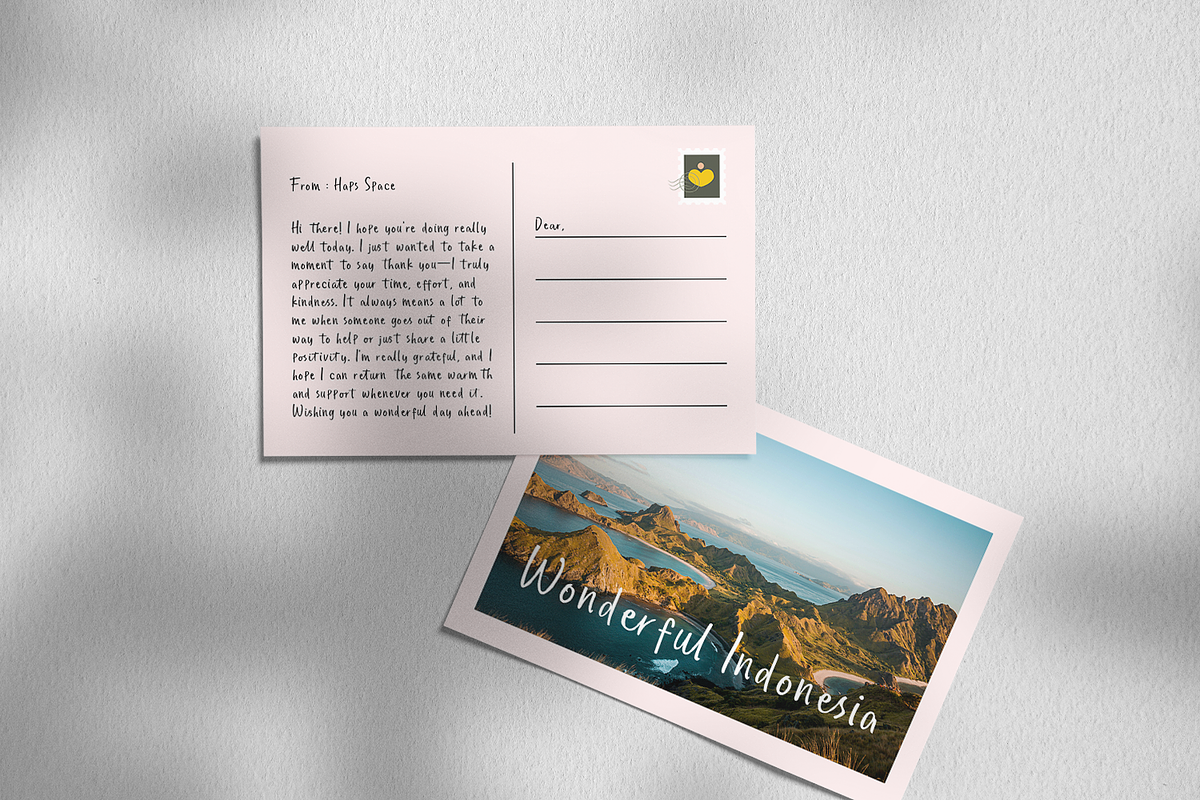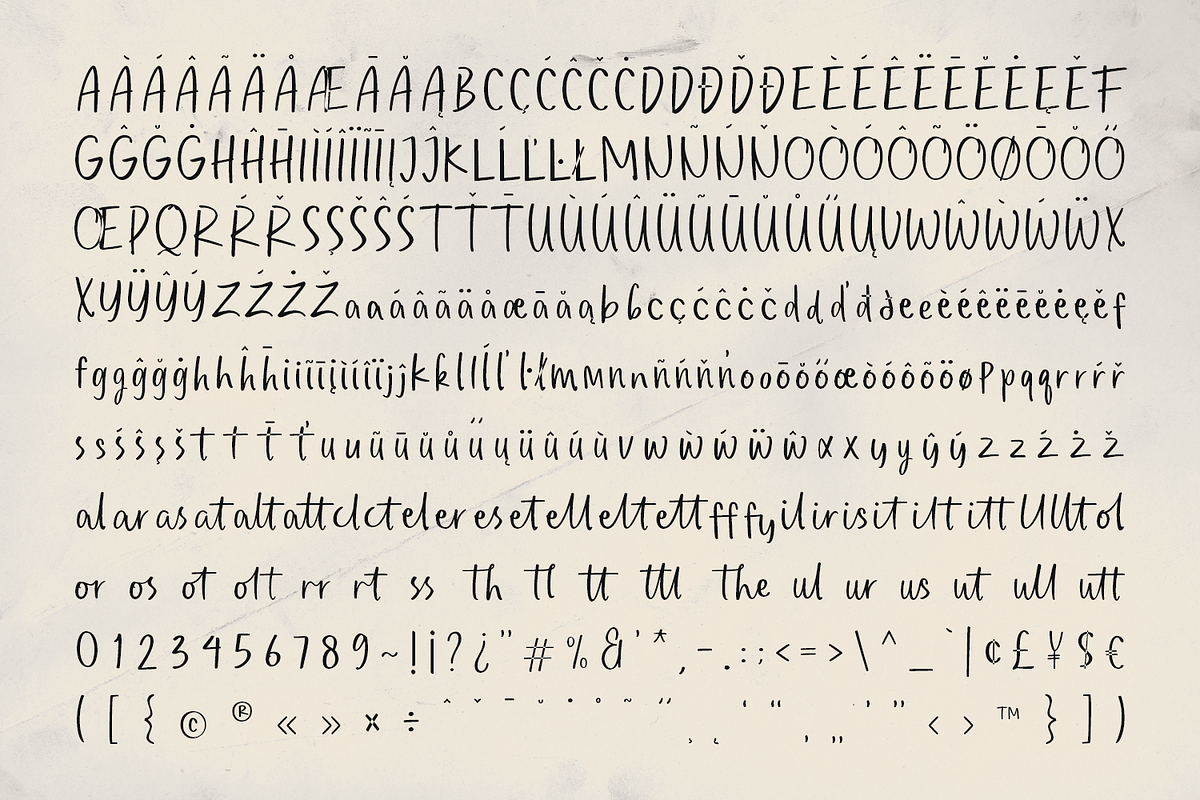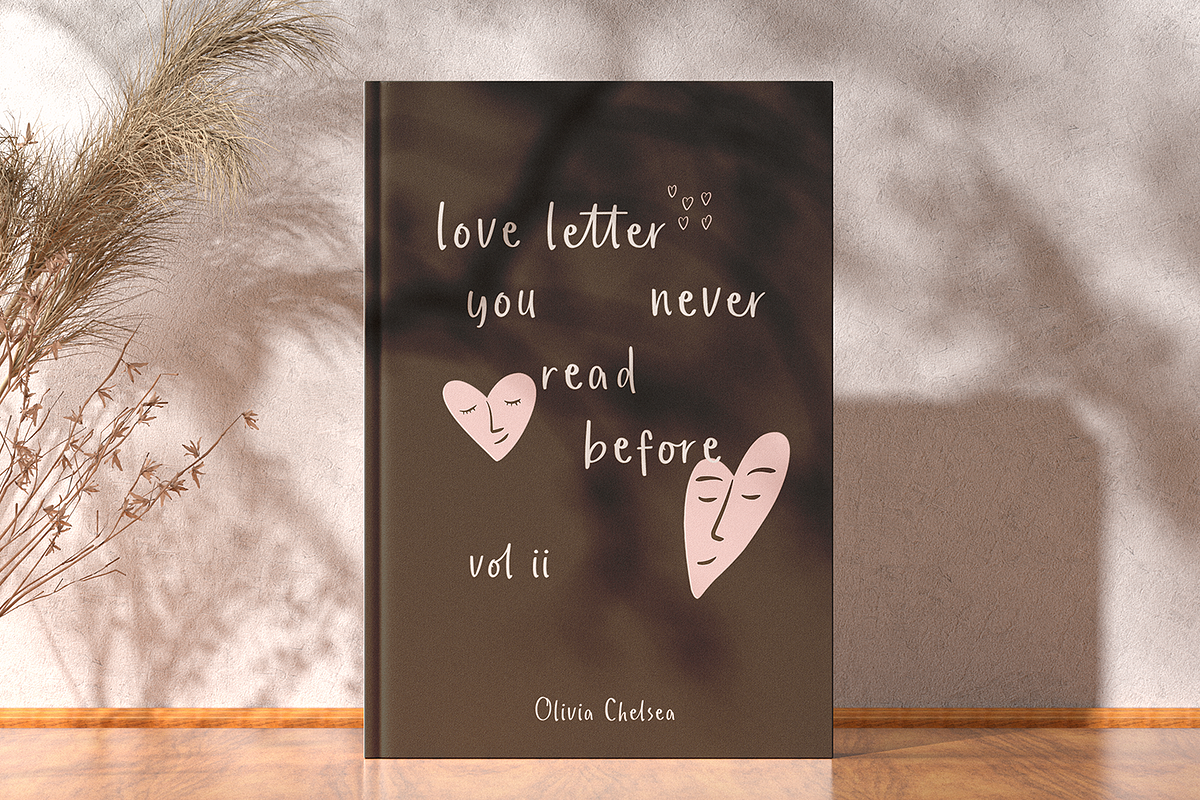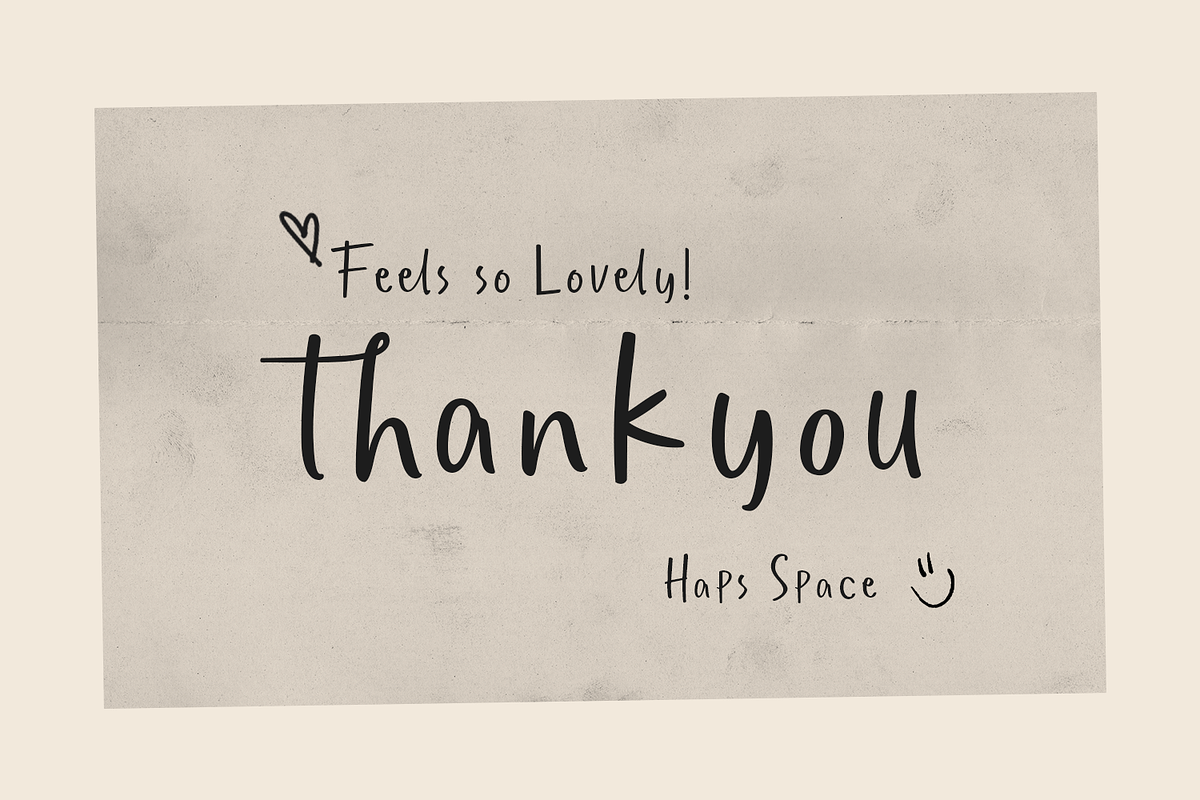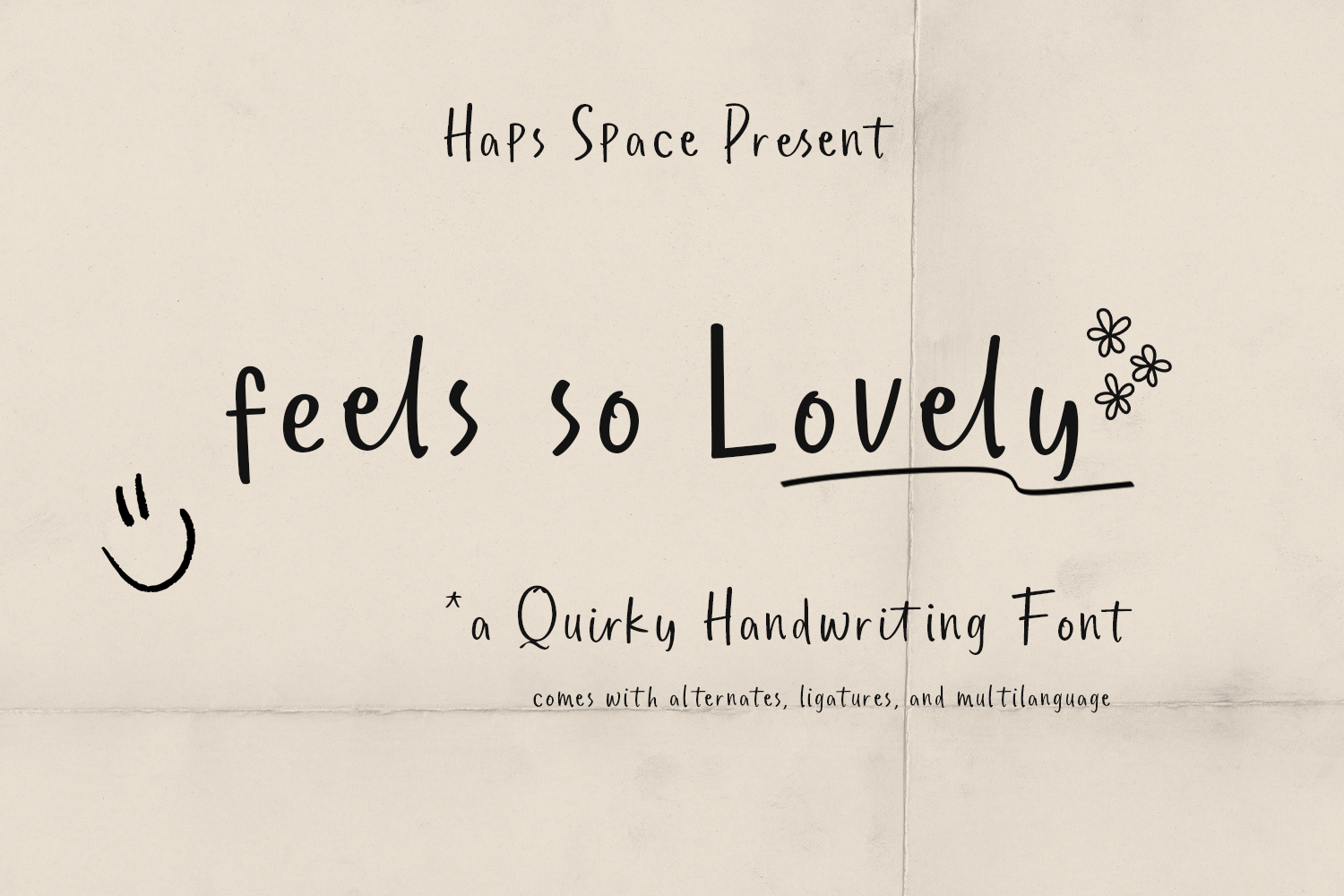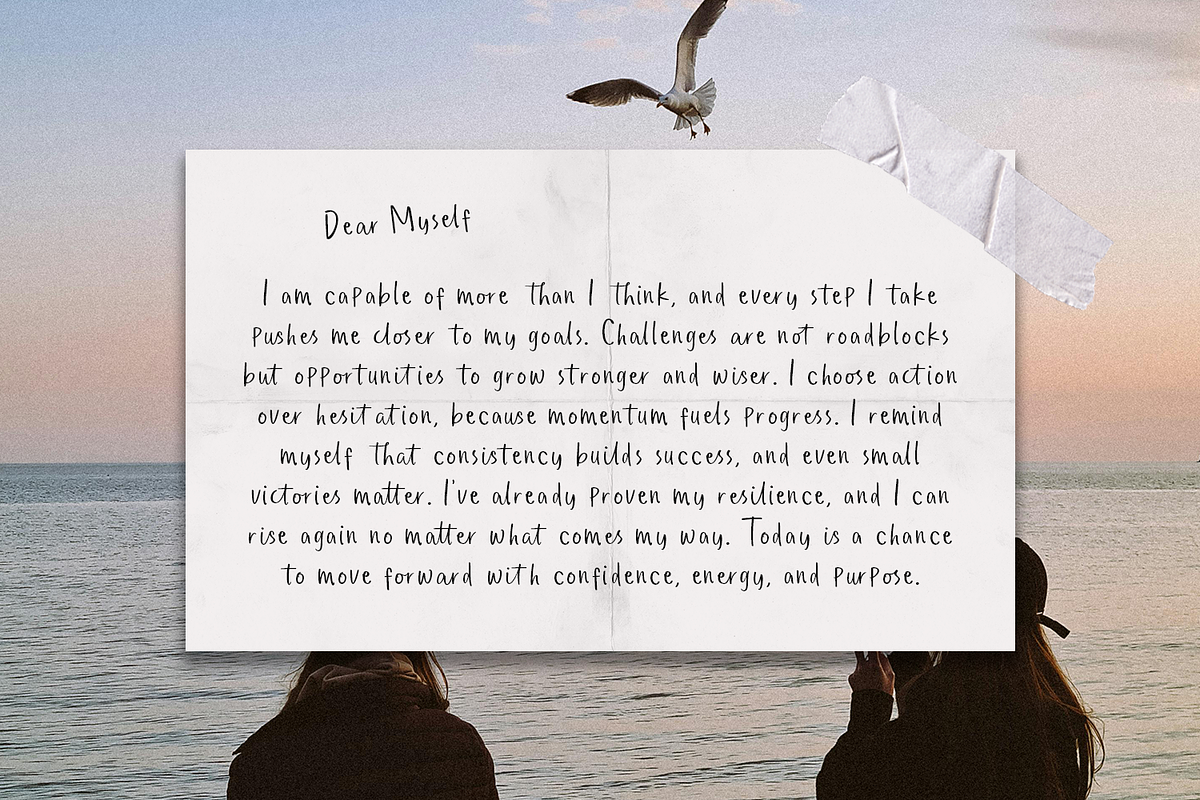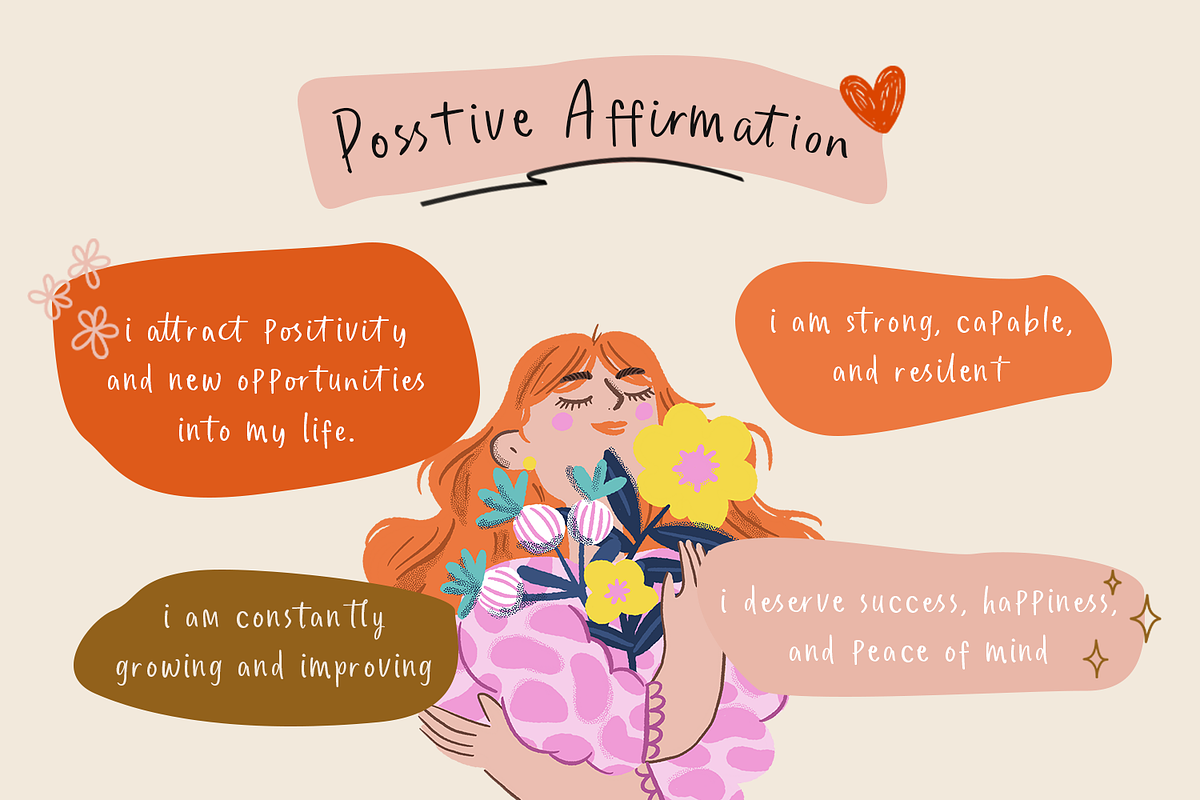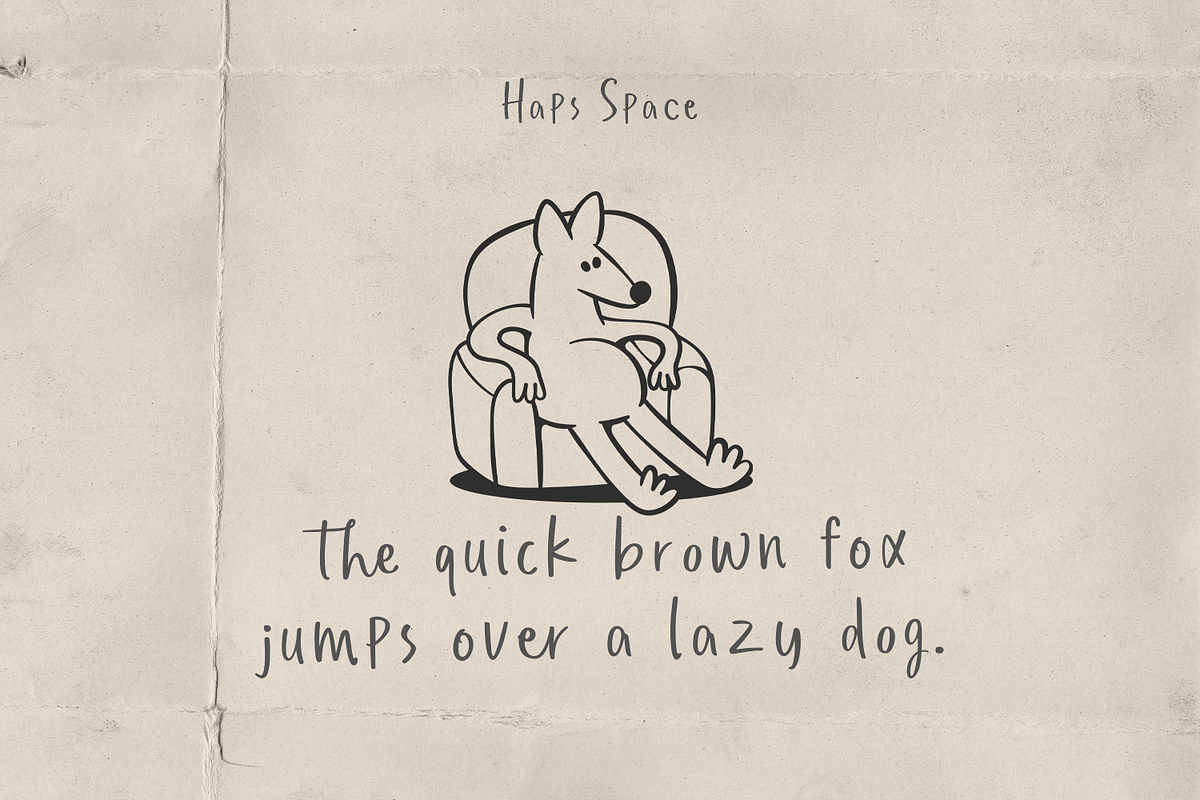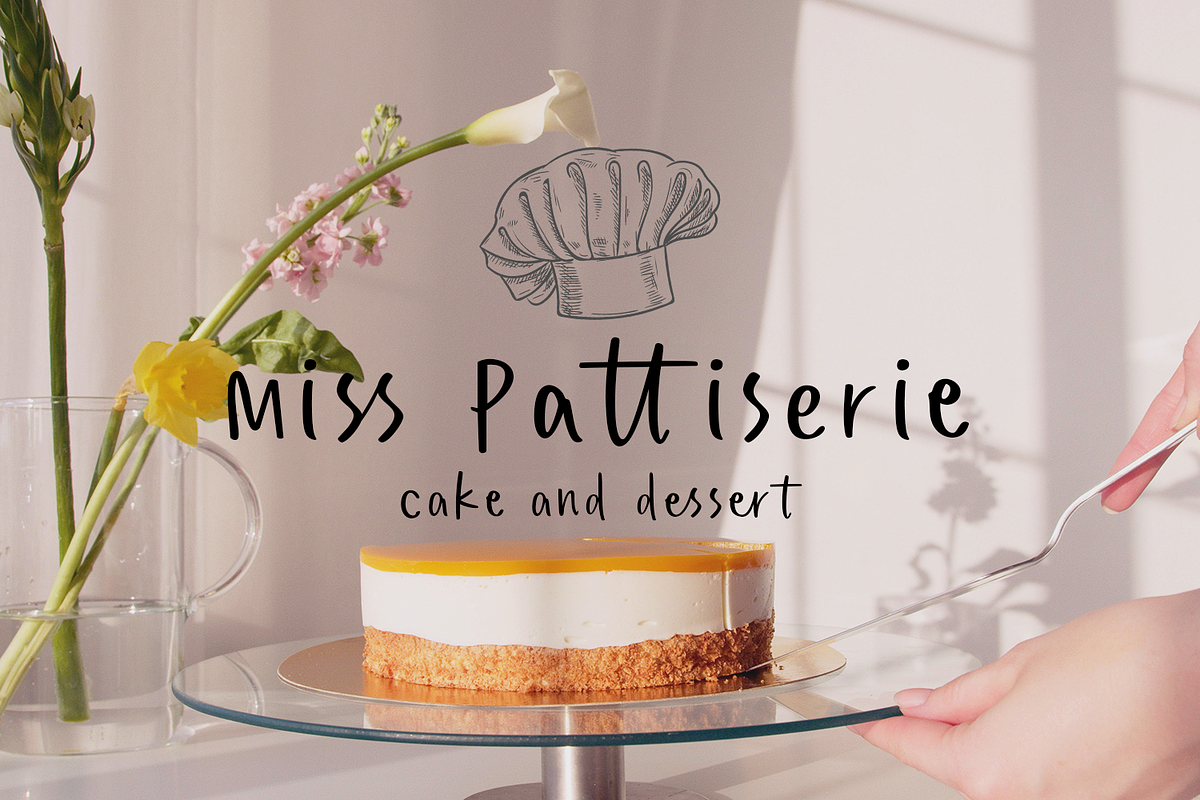
Feels So Lovely Playful Quirky Font
feels so Lovely is a high-quality, Quirky Handwriting Font that delivers an authentic, handcrafted aesthetic. It is a versatile and essential tool for designers seeking to add warmth and personal charm to their projects. The package includes alternates, ligatures, and multilanguage support for comprehensive creative freedom. Choose "feels so Lovely" to effortlessly elevate your branding, packaging, and digital designs with a touch of genuine script